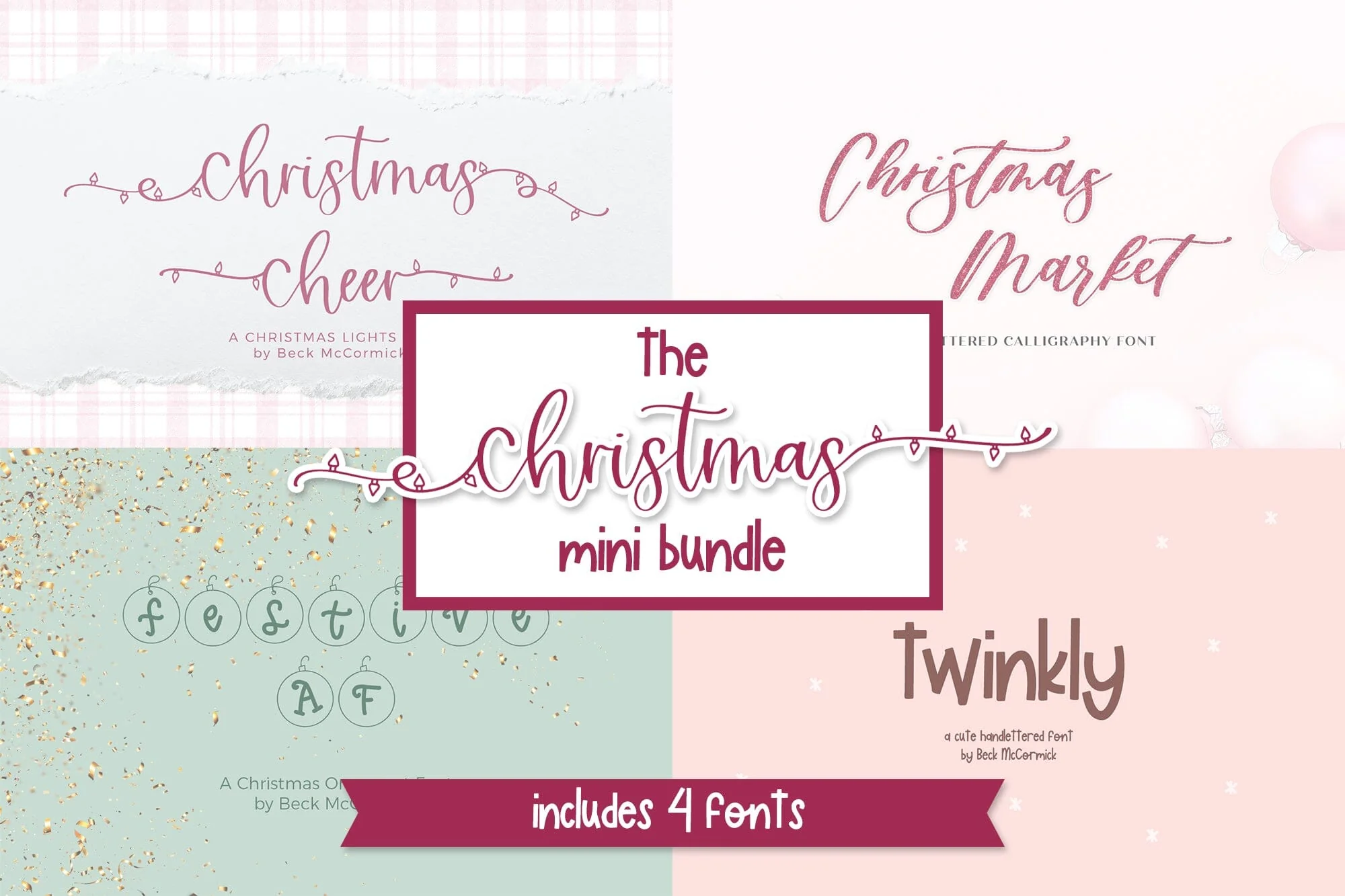
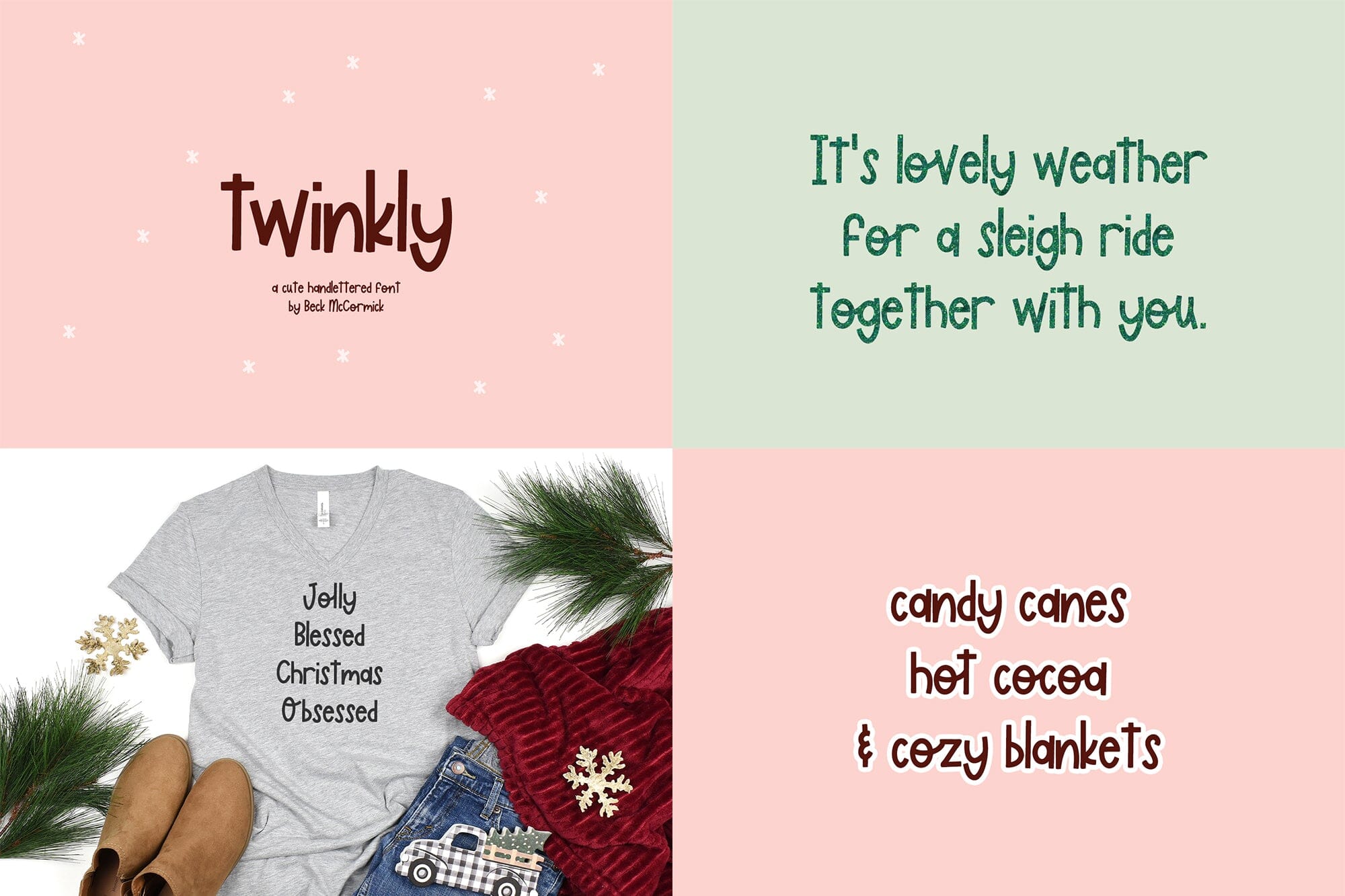
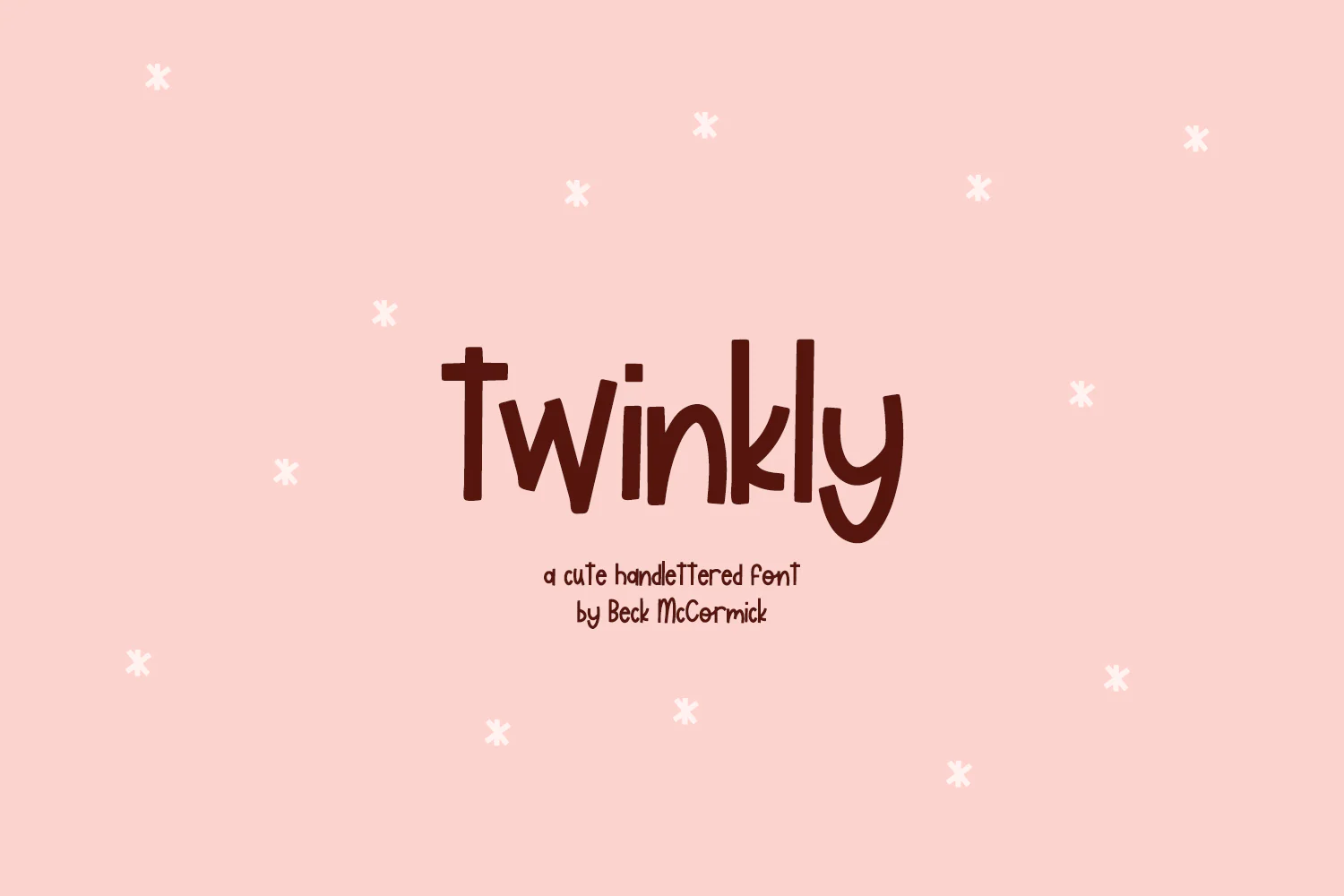
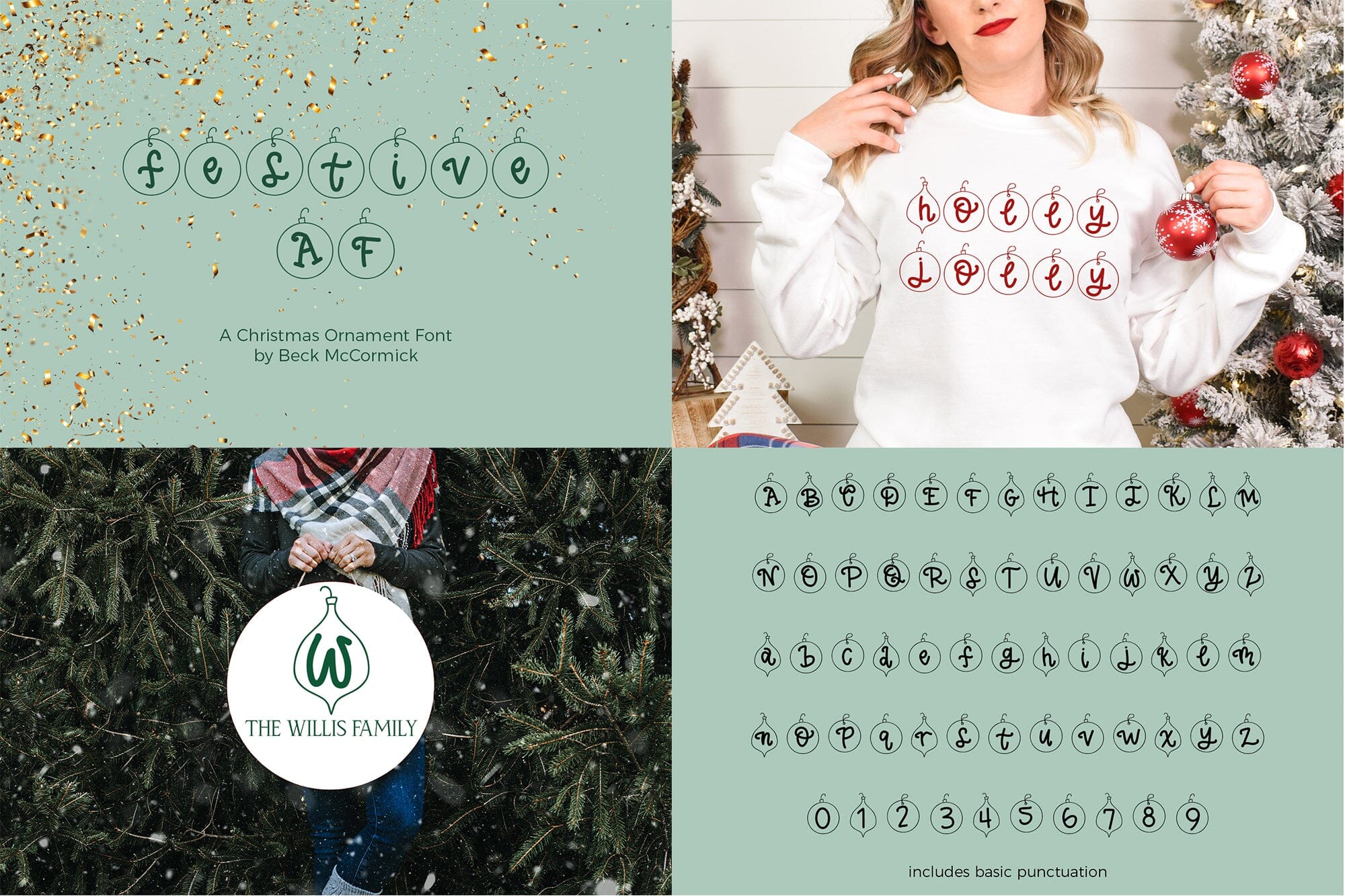
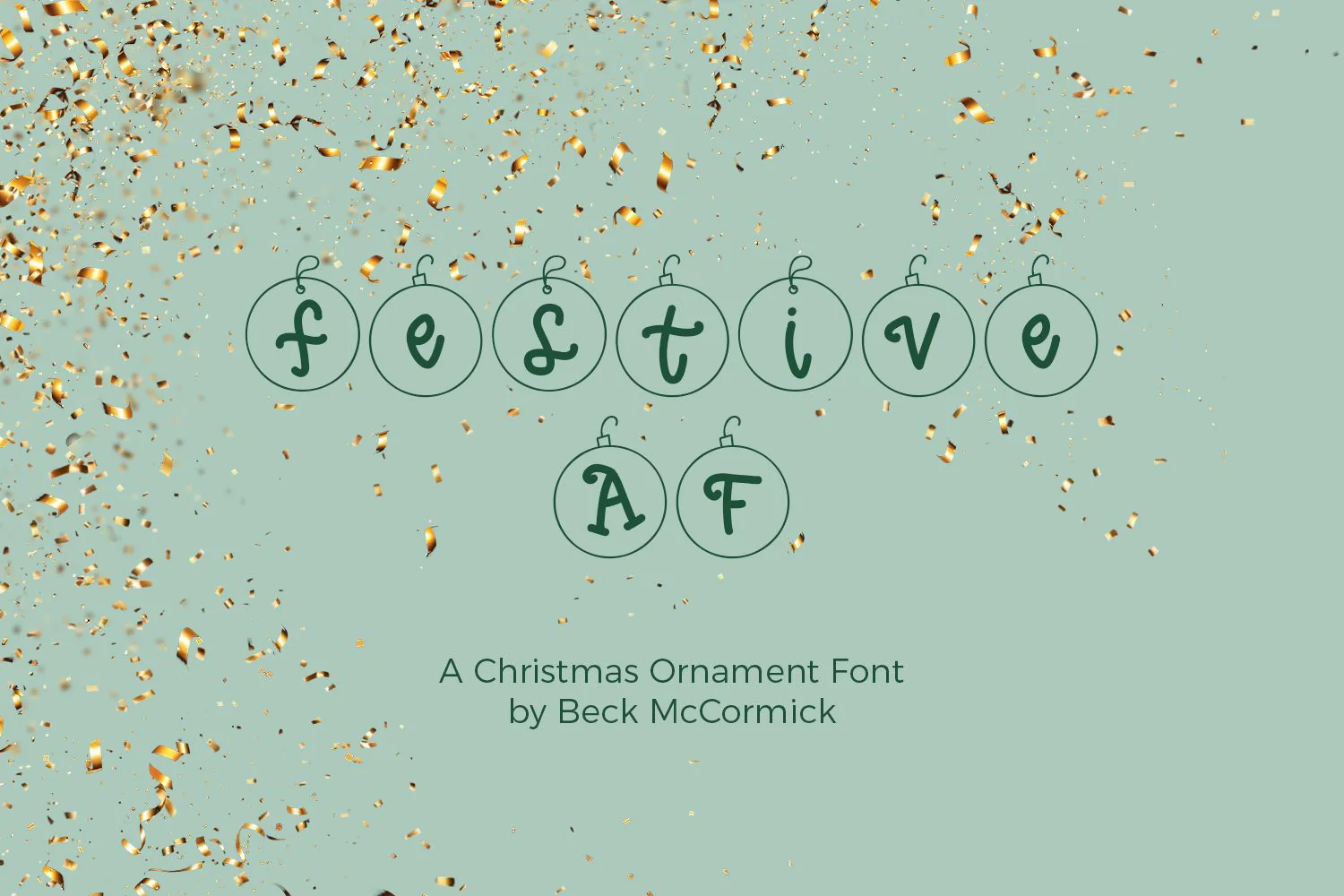
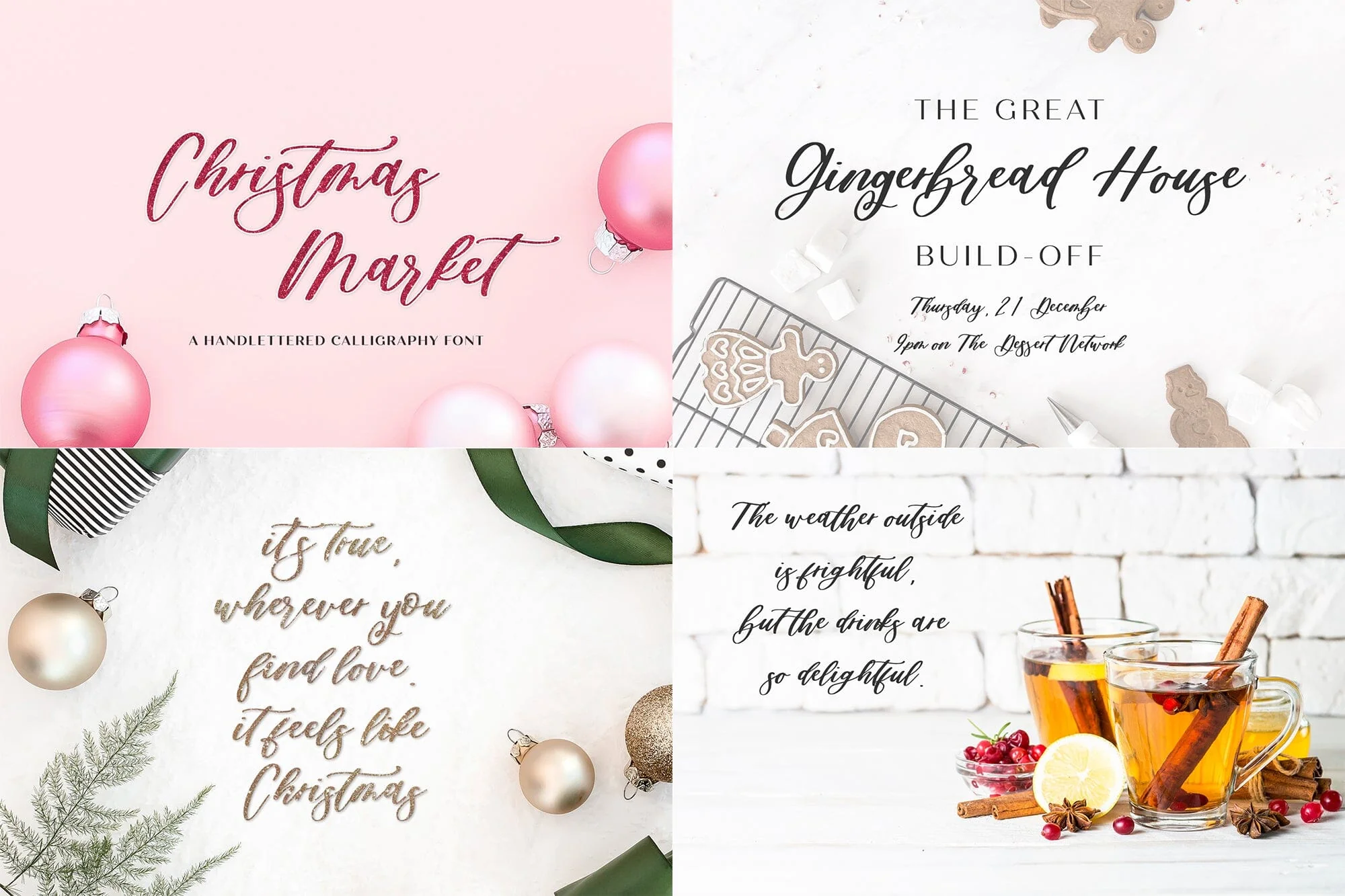
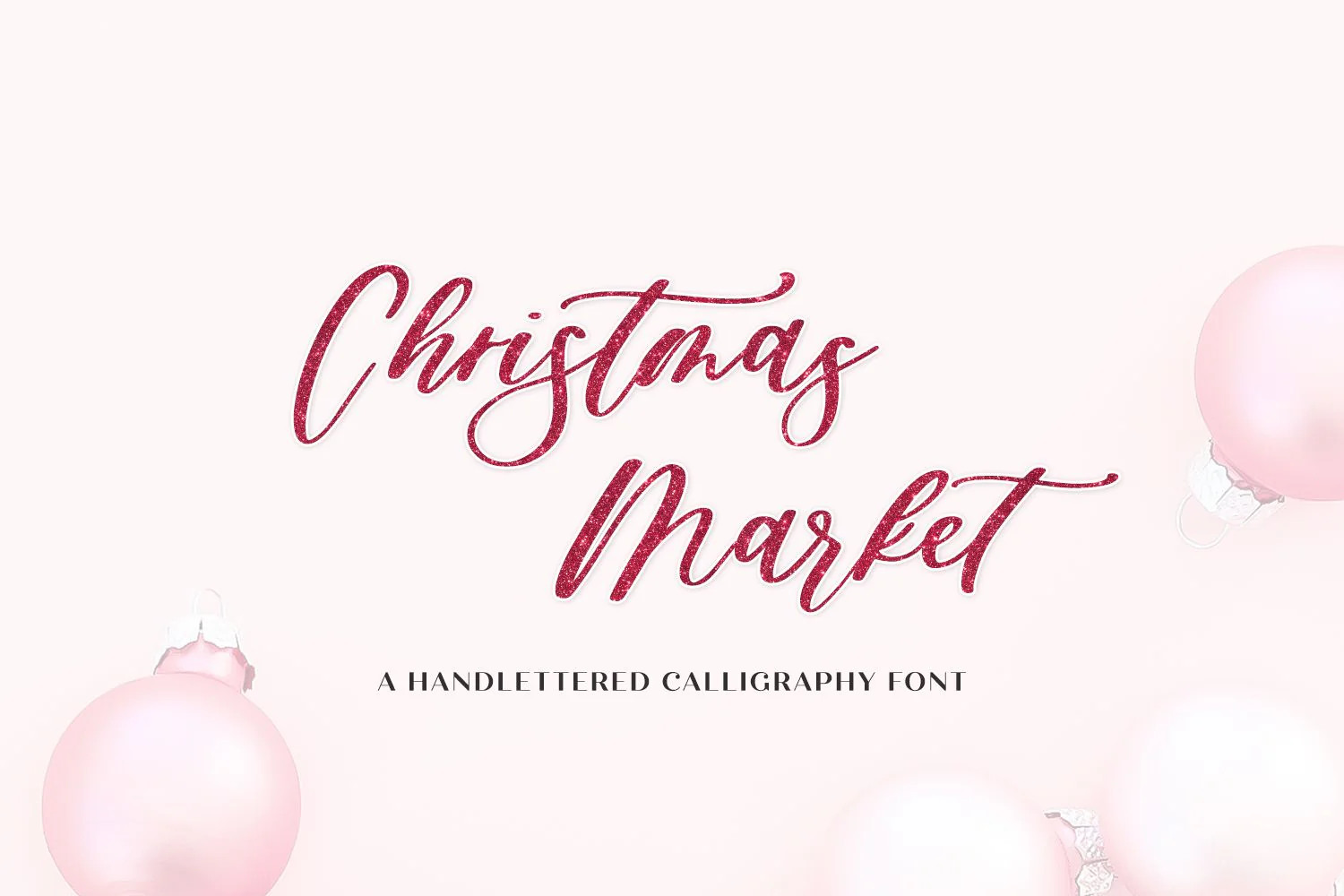
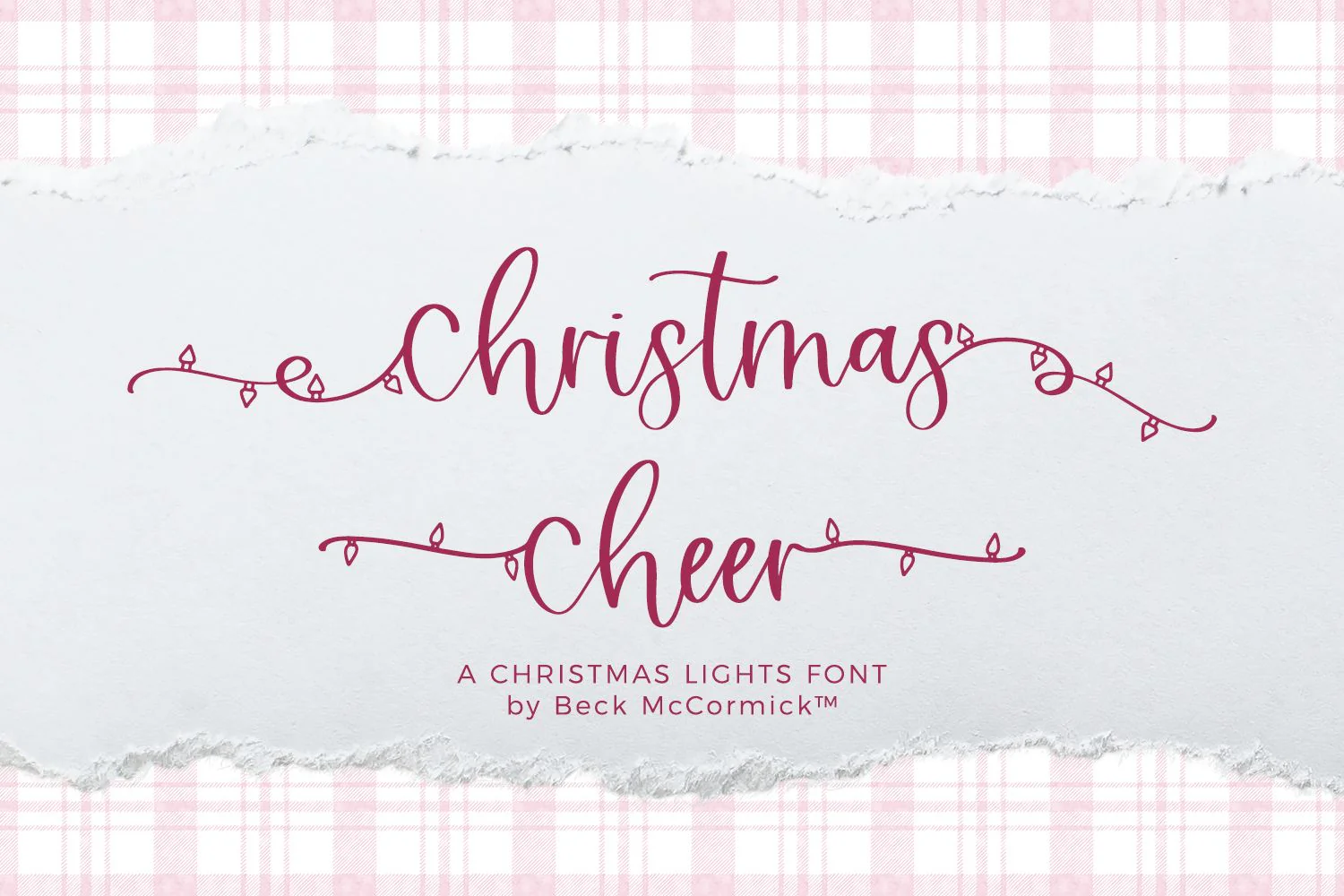
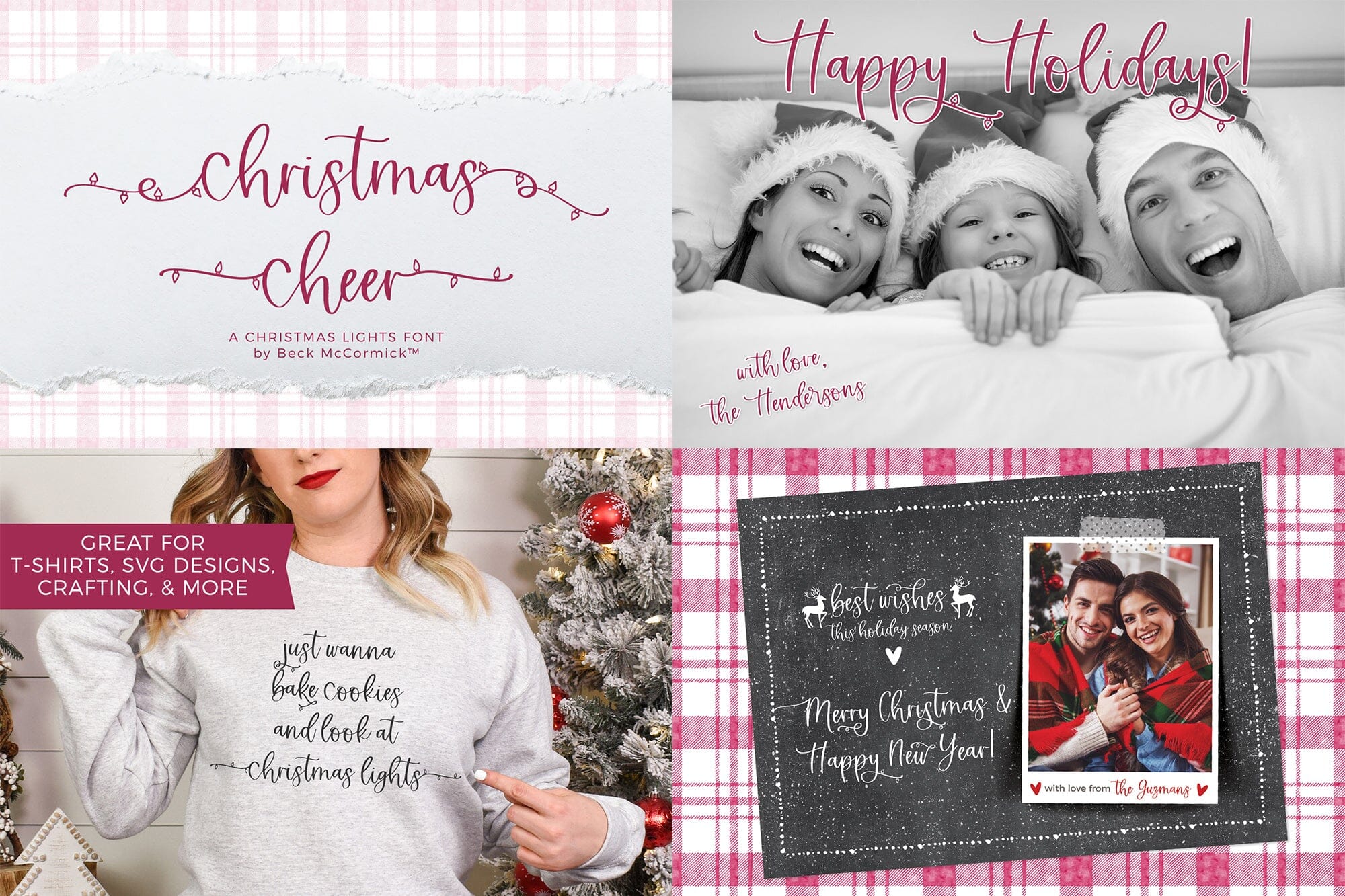
The Christmas Font Mini Bundle
Introducing the Christmas Font Mini Bundle, which includes four festive Christmas fonts.
You get:
- Christmas Cheer Script with Christmas light swashes
- Christmas Market Script
- Festive AF ornament font
- Twinkly Sans